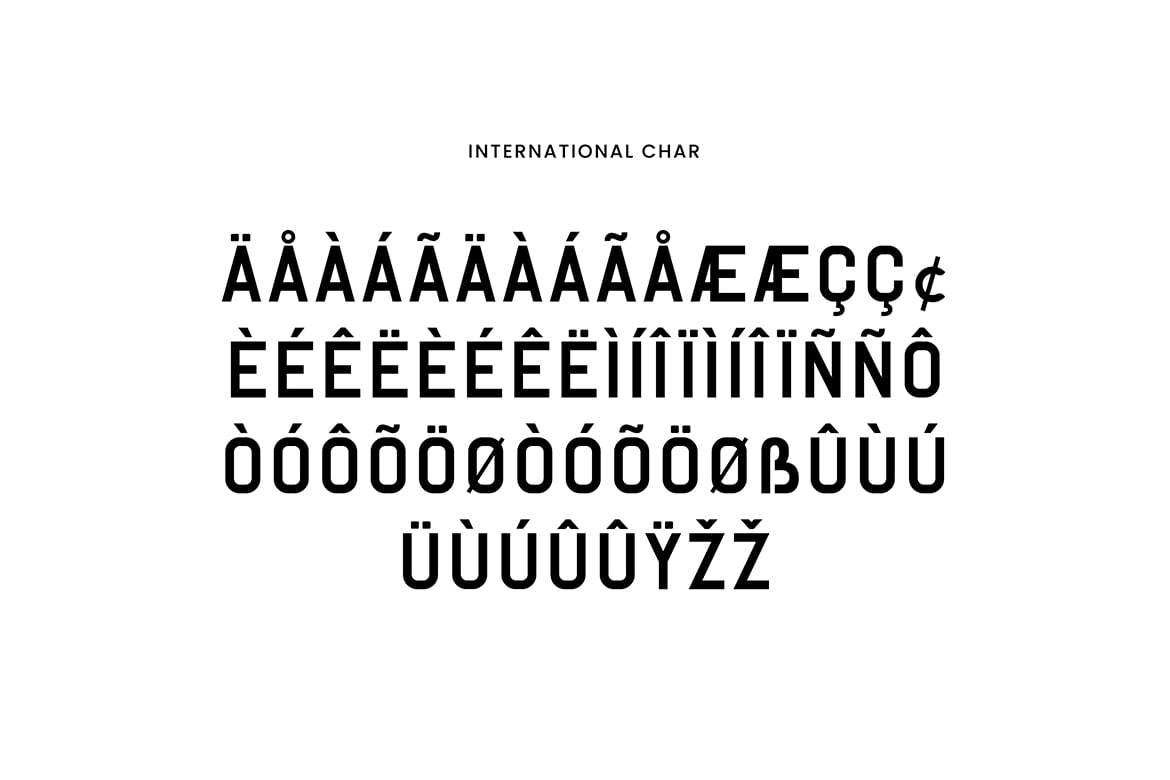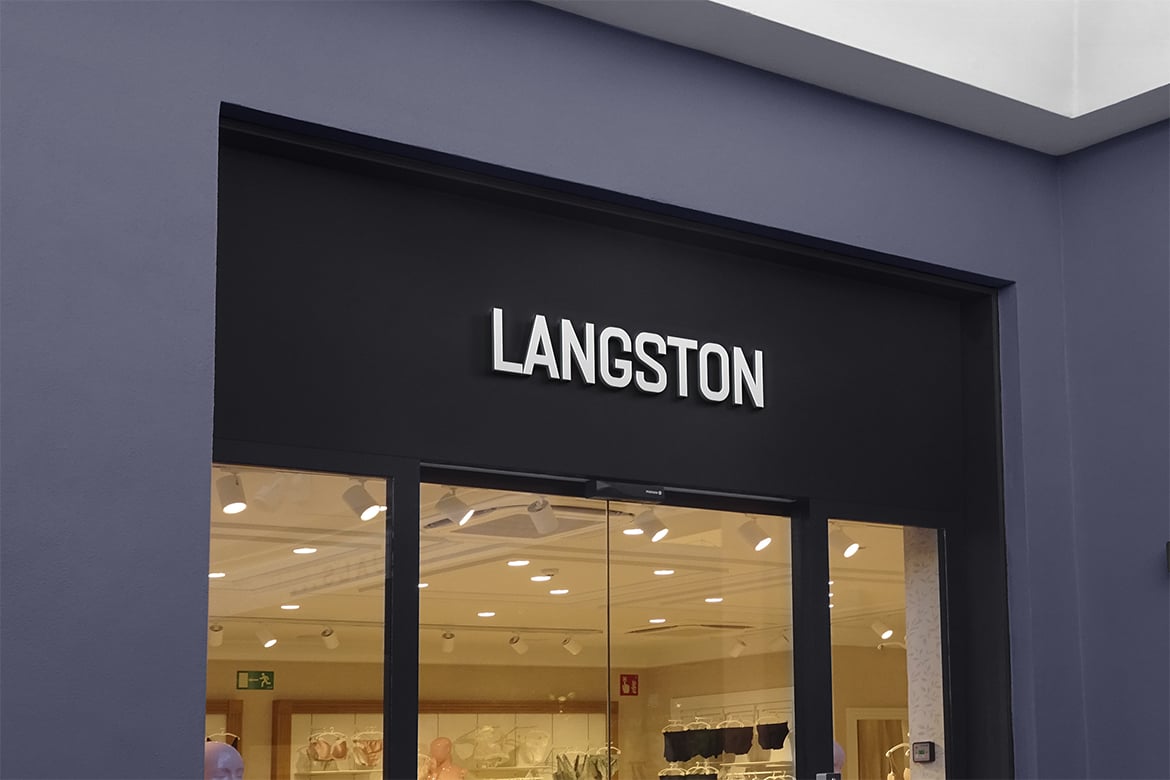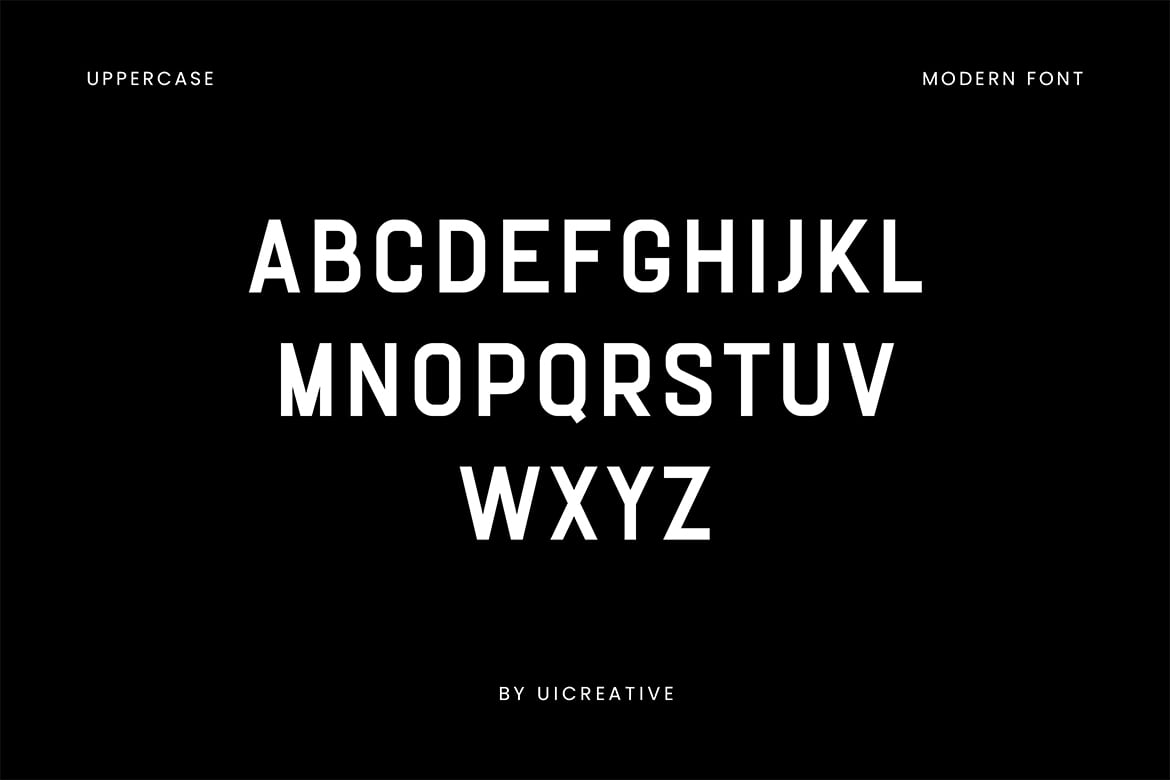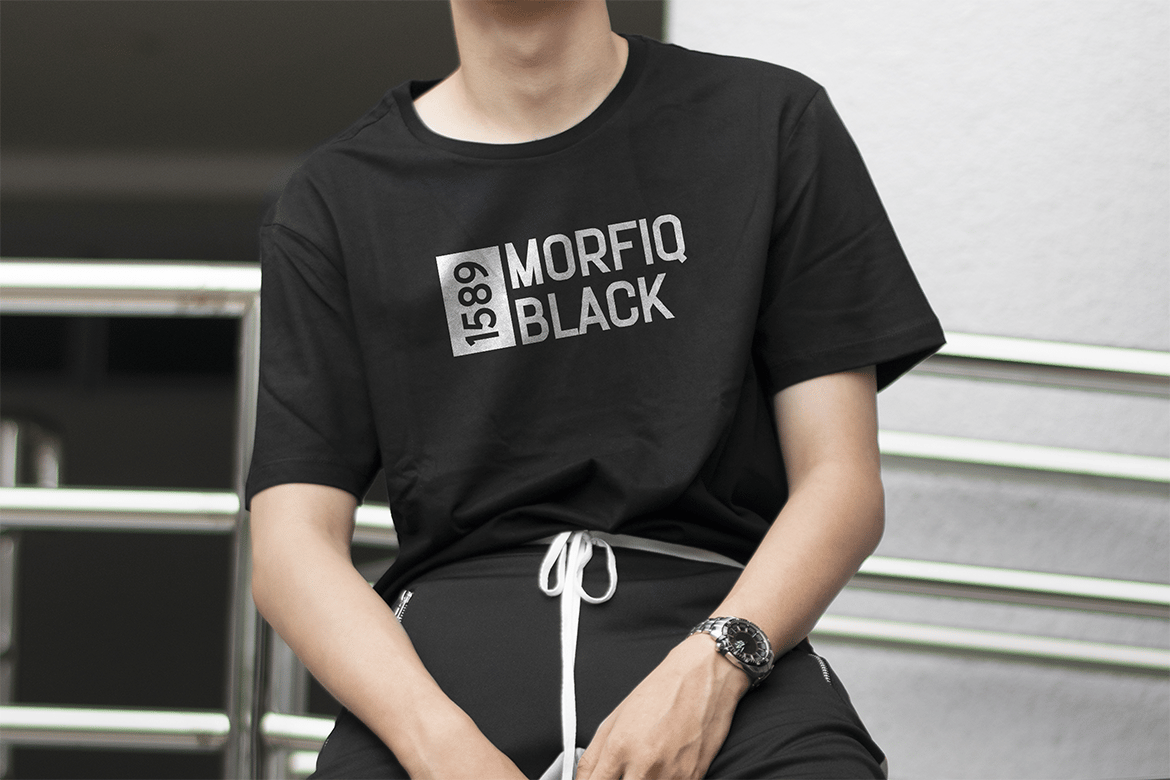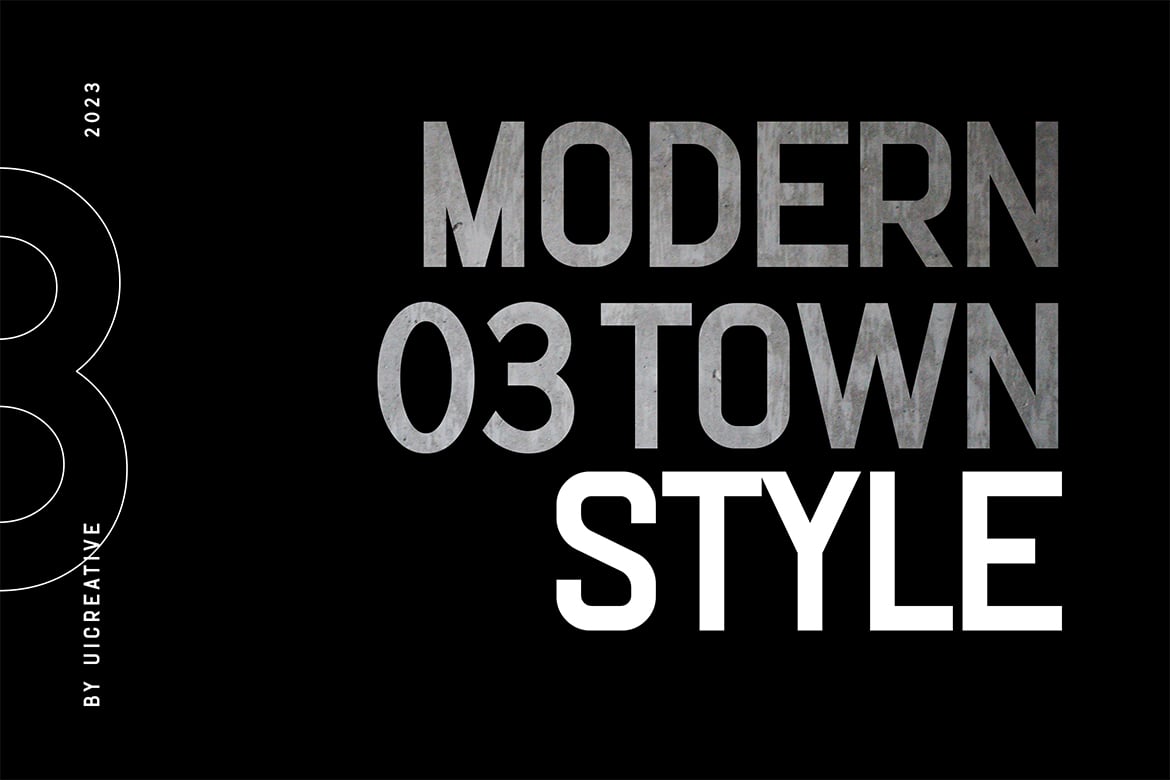
Langostions Modern Slab Font
Introducing our new product the name is Langostions Modern Slab Font. Slab Serif font that feels beautiful classy, elegant, and modern. This font is perfectly suited for a wide variety of projects, such as signature, stationery, logo, wedding, typography quotes, magazine or book covers, website headers, clothing, branding, packaging design, and more. Also for fashion-related branding or editorial design
- !”#$&'()*+,-./:;=?@[]_{|} ¡¢«»¿